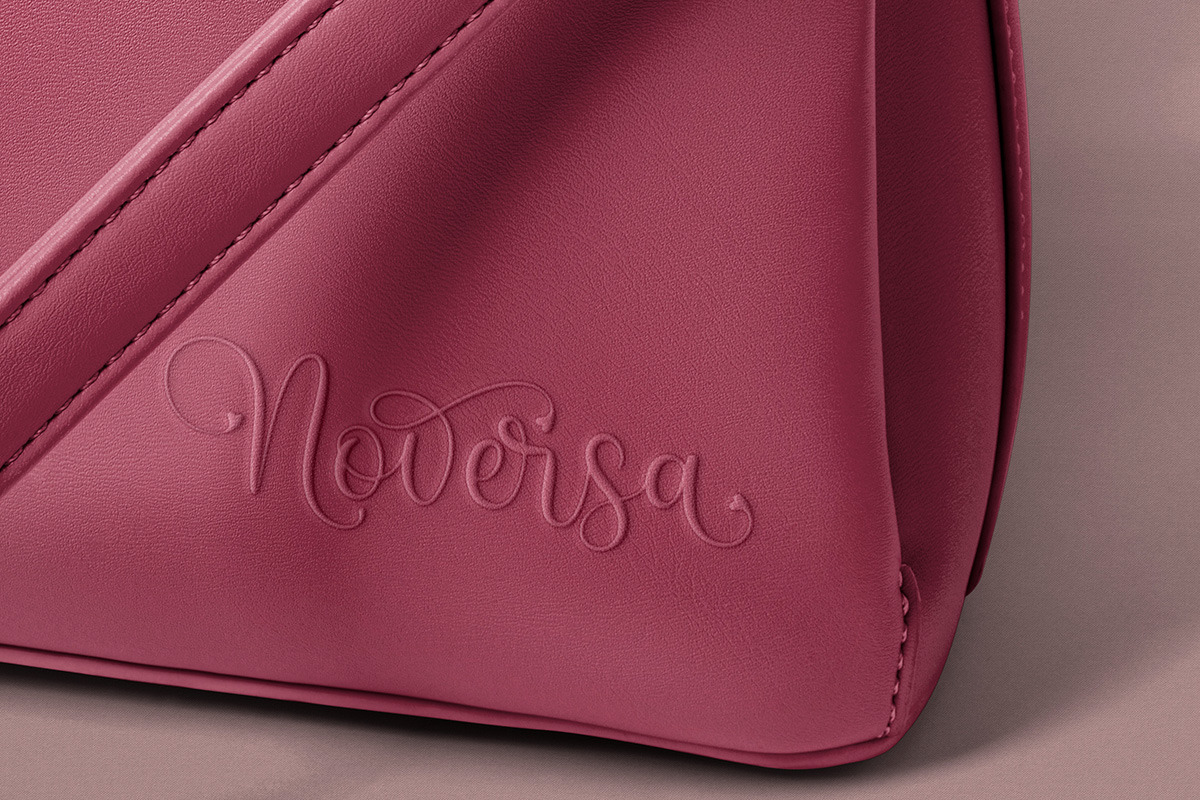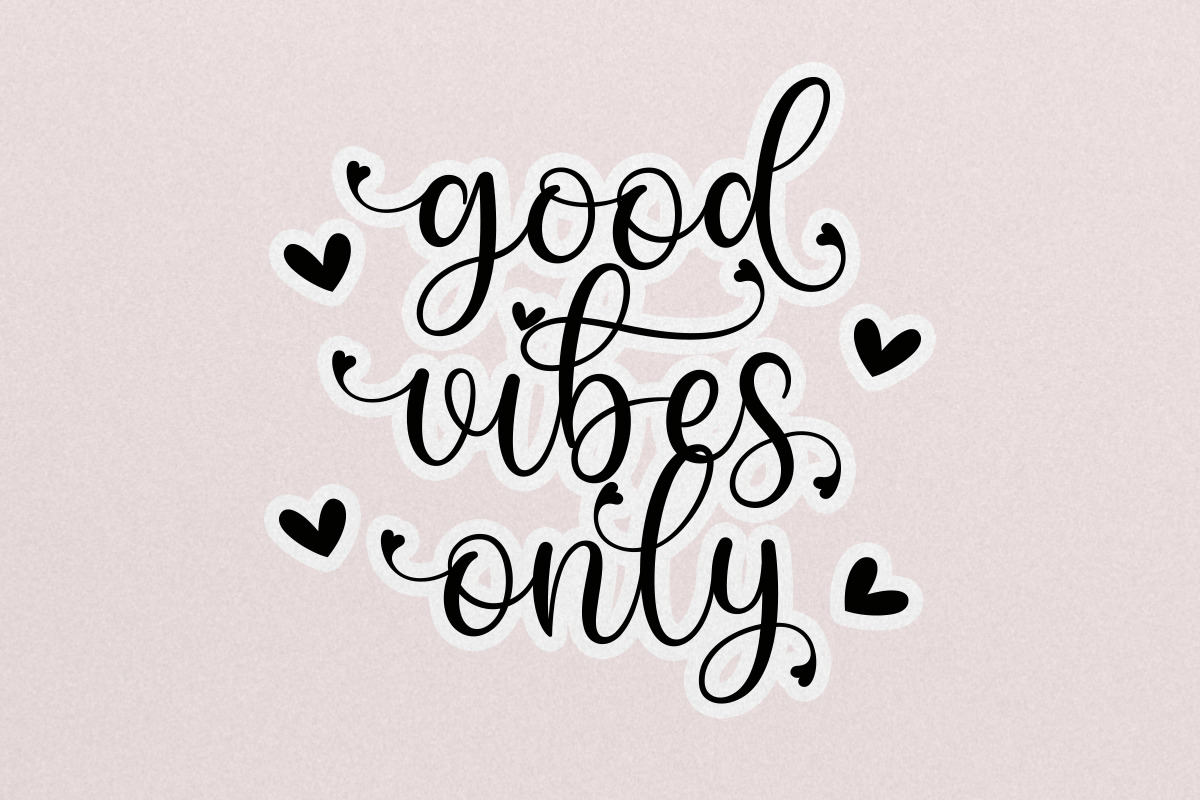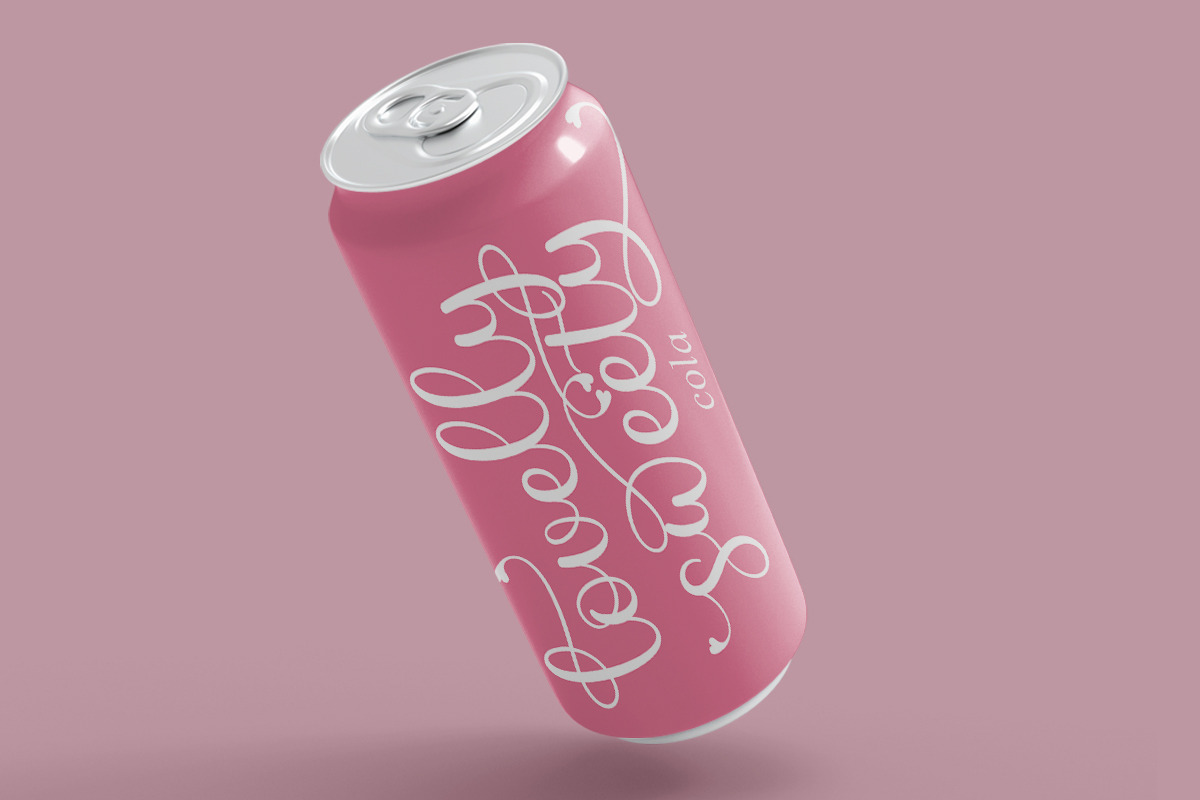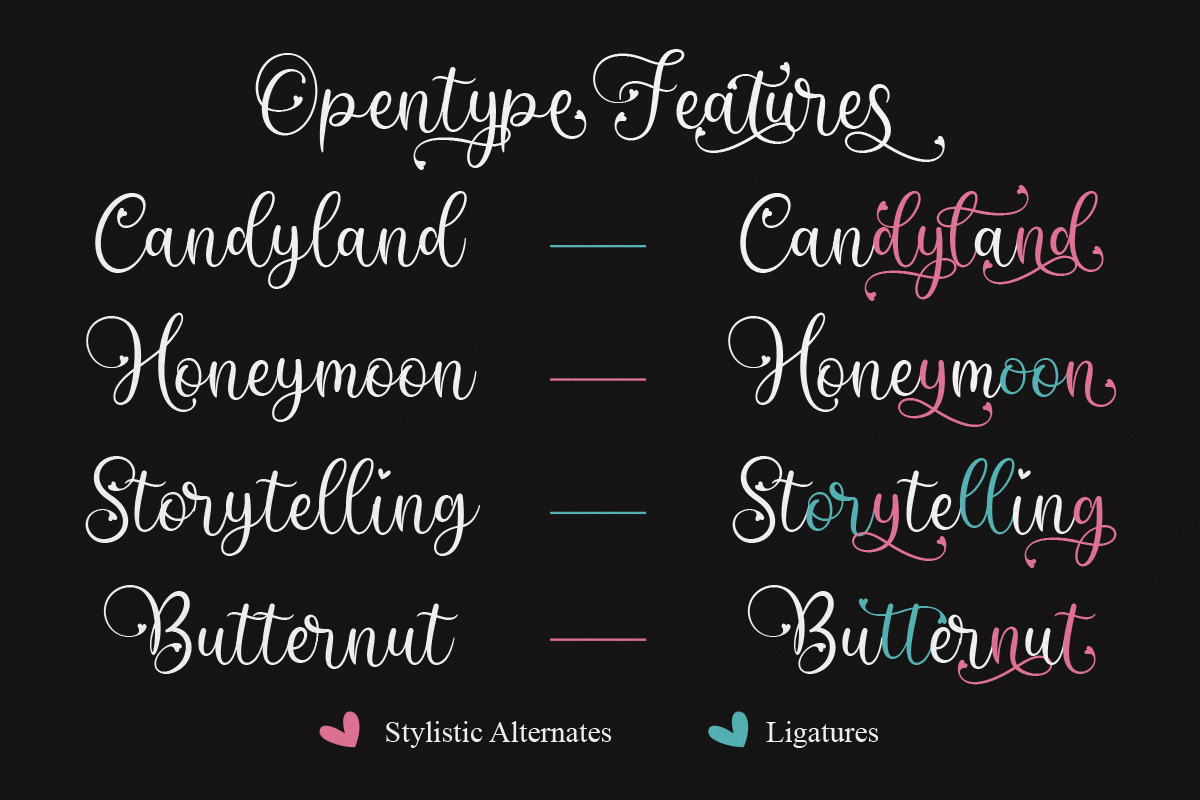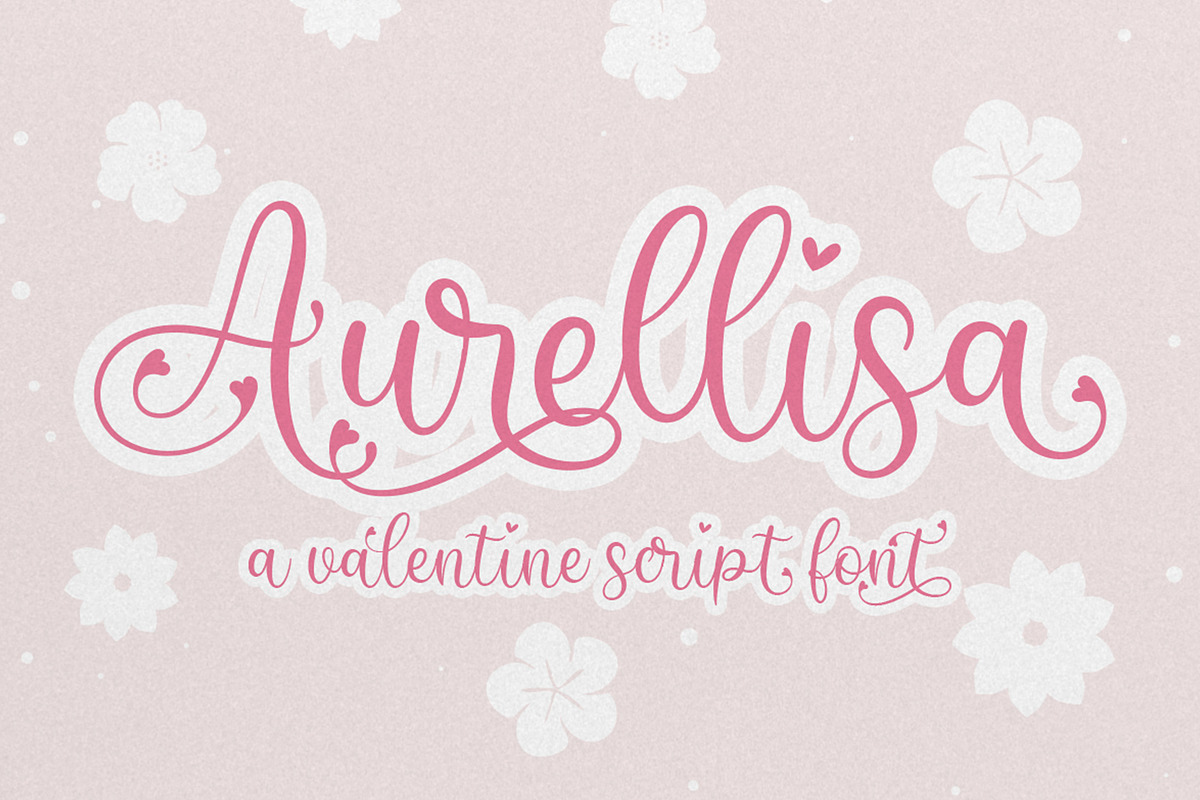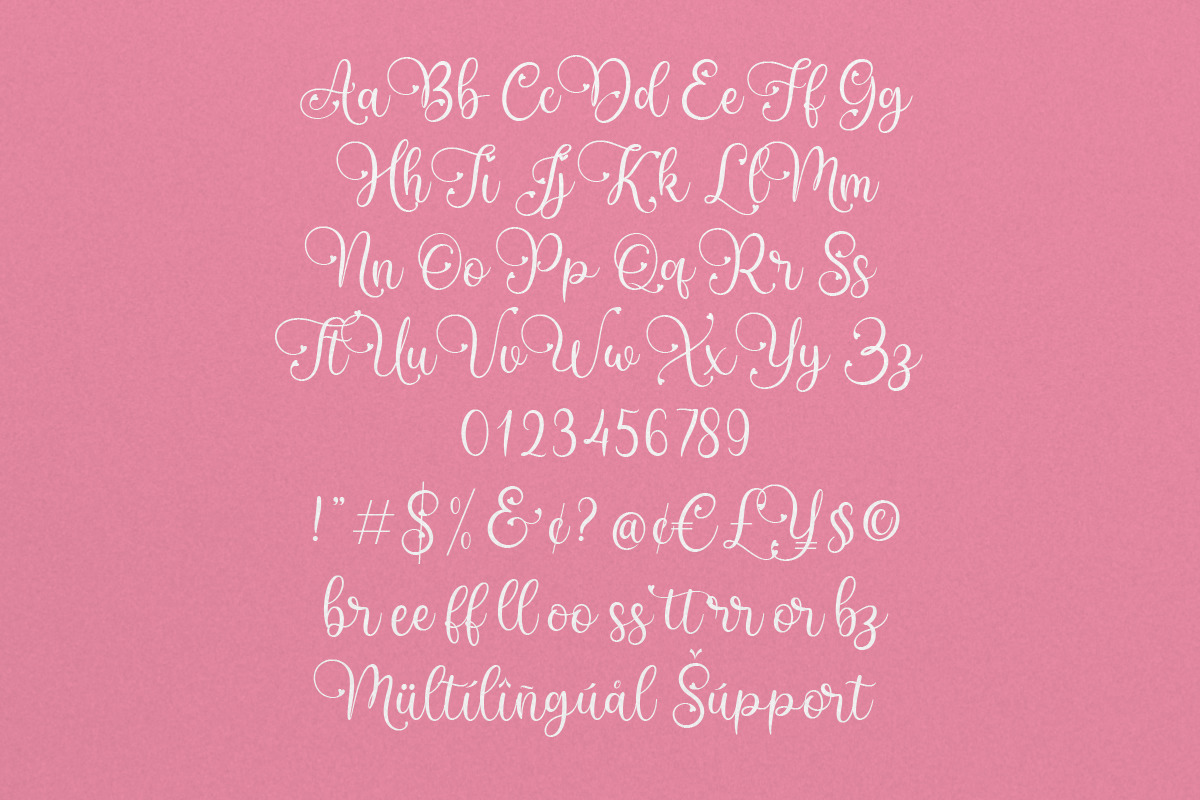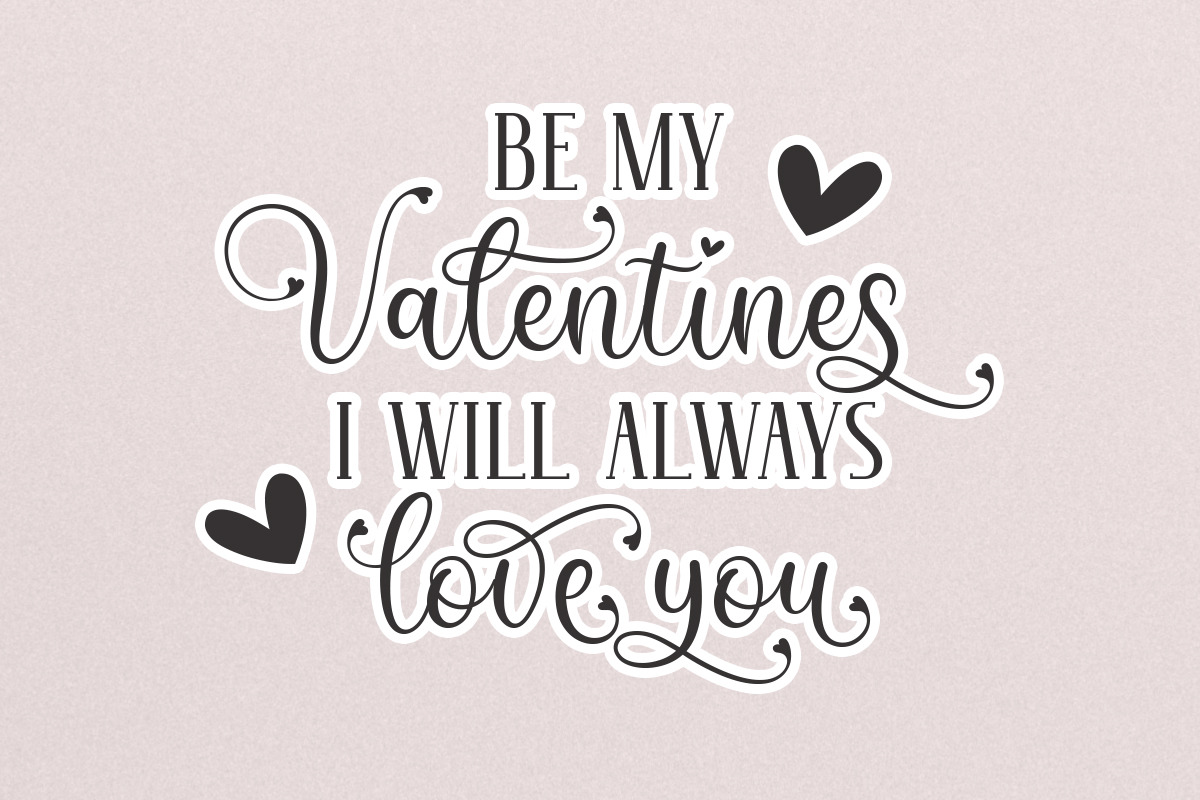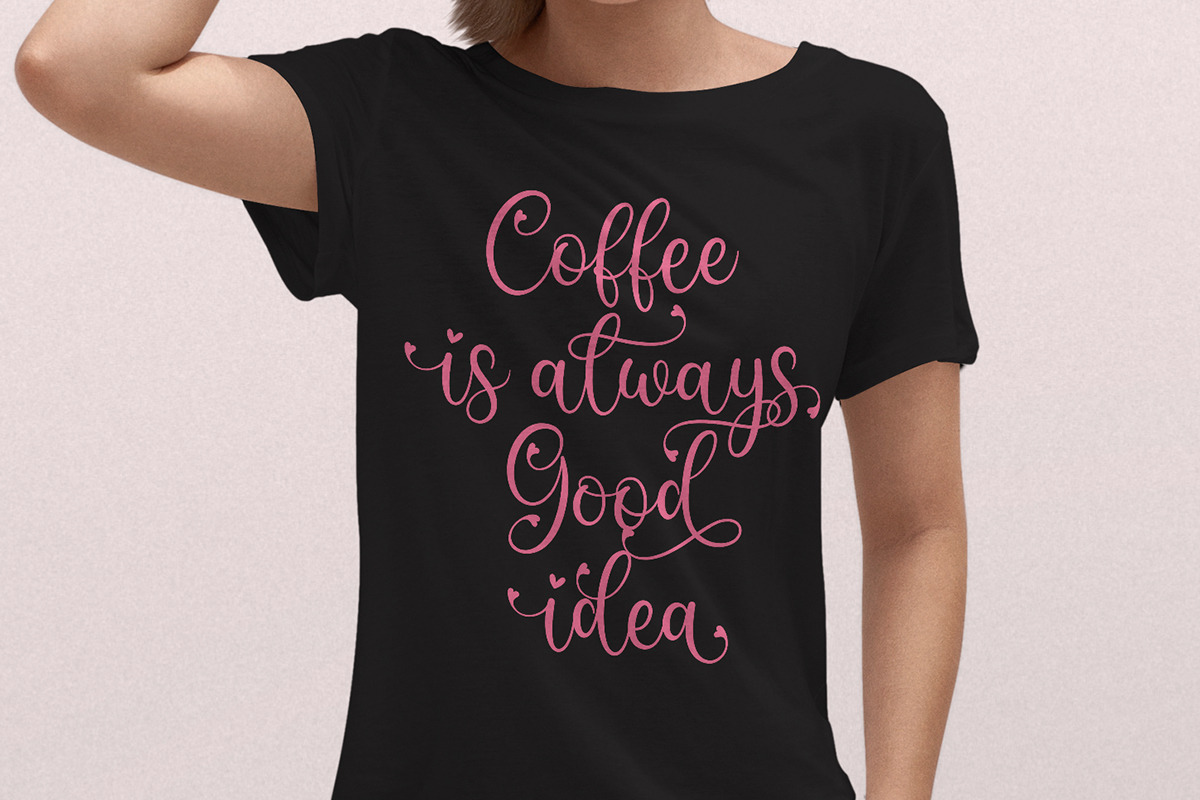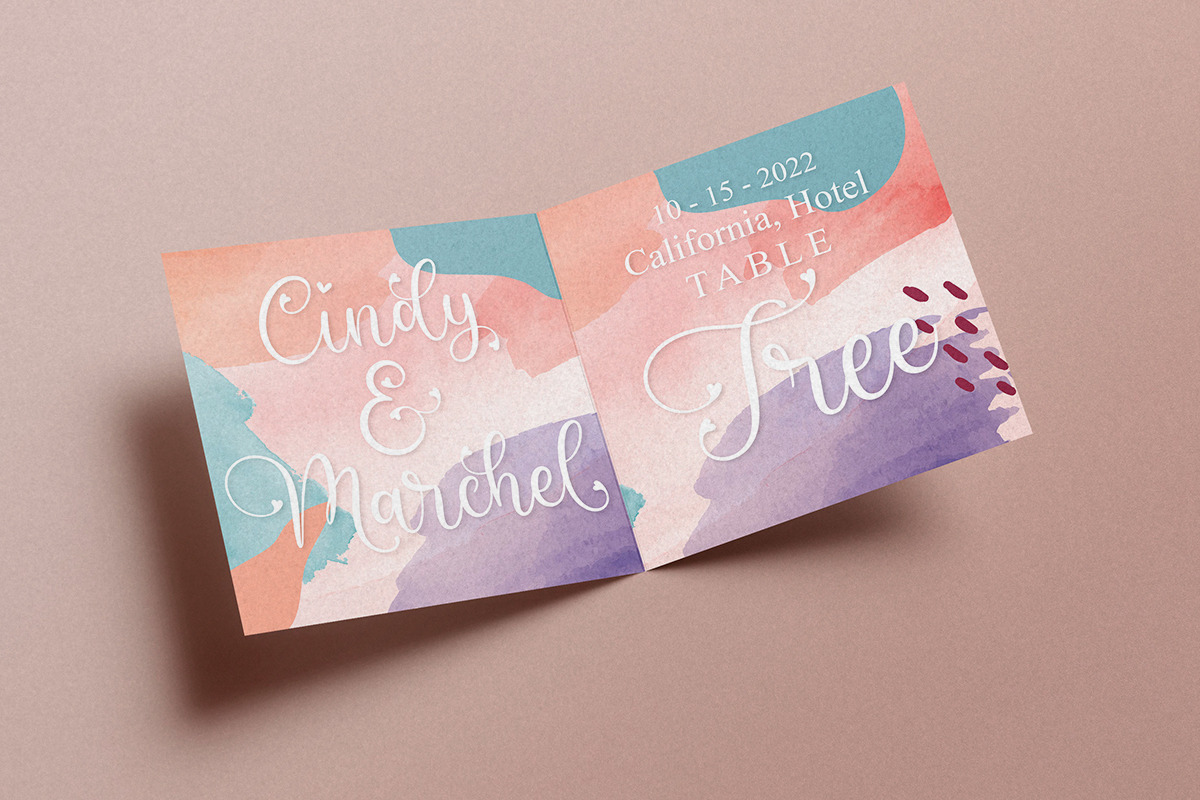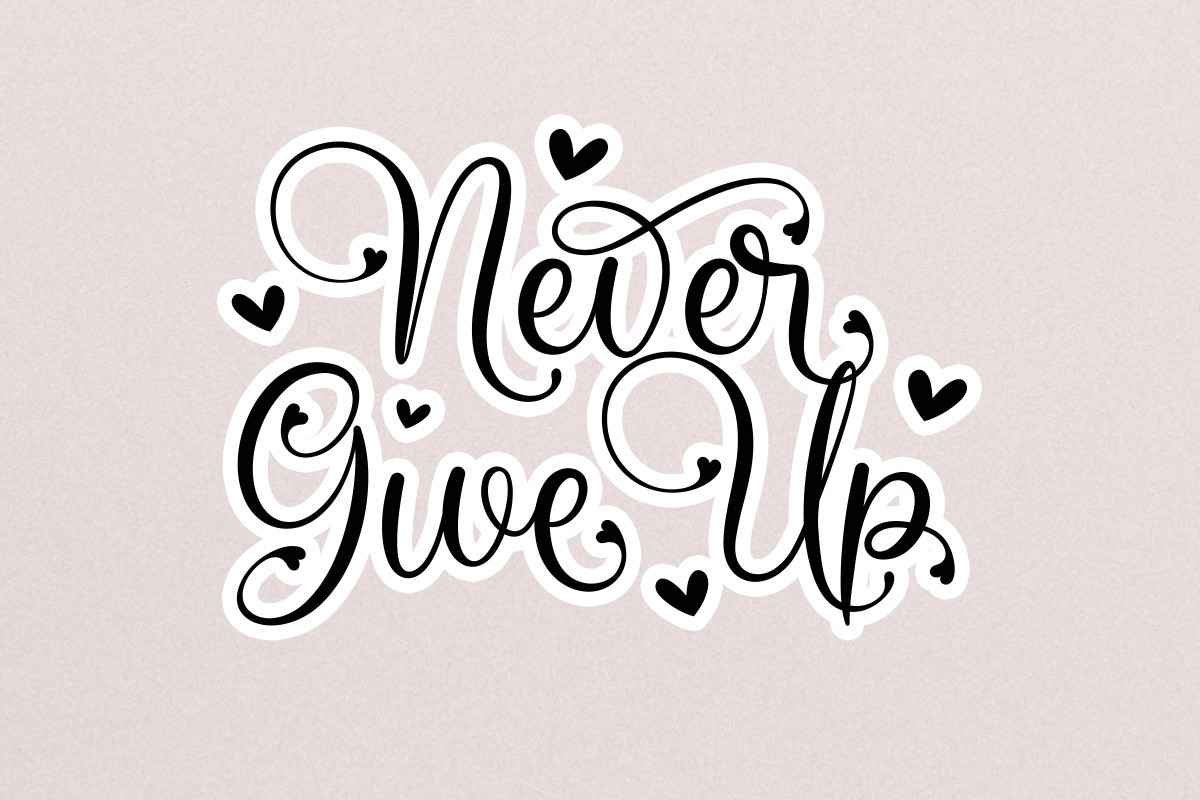
Aurellisa | Lovely Script
Aurellisa is a modern calligraphy with many alternative styles, this font looks natural, elegant and perfect for any extraordinary project.